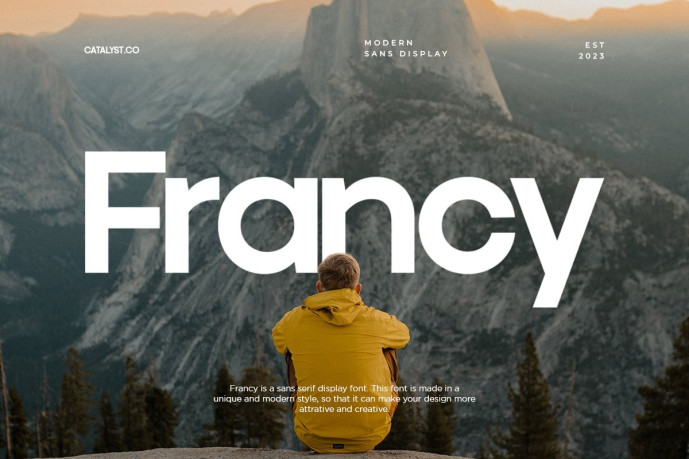
Francy Sans Font
Designer: catalystco
Francy Sans Font is a modern sans serif display typeface designed with clean geometry, balanced curves, and a contemporary minimalist aesthetic. Its bold shapes and sleek construction make it an ideal choice for strong headlines, branding systems, lifestyle visuals, and digital communication. The design blends simplicity and refinement, giving every layout a polished and professional presence.
With full uppercase and lowercase sets, numerals, and punctuation, Francy delivers versatility across logos, editorial design, advertising, and social media content. As a premium geometric sans serif, it enhances clarity, enhances visual hierarchy, and brings a modern edge to any creative project.
Francy is perfect for branding identity, modern logos, editorial layouts, website headers, social media posts, tech product design, lifestyle advertising, packaging, posters, digital content creation, corporate presentations, and any project requiring a clean, bold, and modern sans serif display.